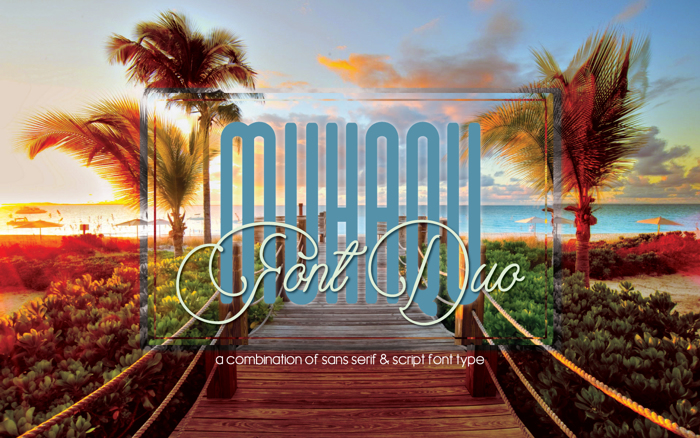
Muhaqu Regular Font
Muhaqu Font Duo will be perfect for many different projects such as logos & branding, invitation, stationery, wedding designs, social media posts, advertisements, product packaging, product designs, label, photography, watermark, special events or anything that need handwriting taste.